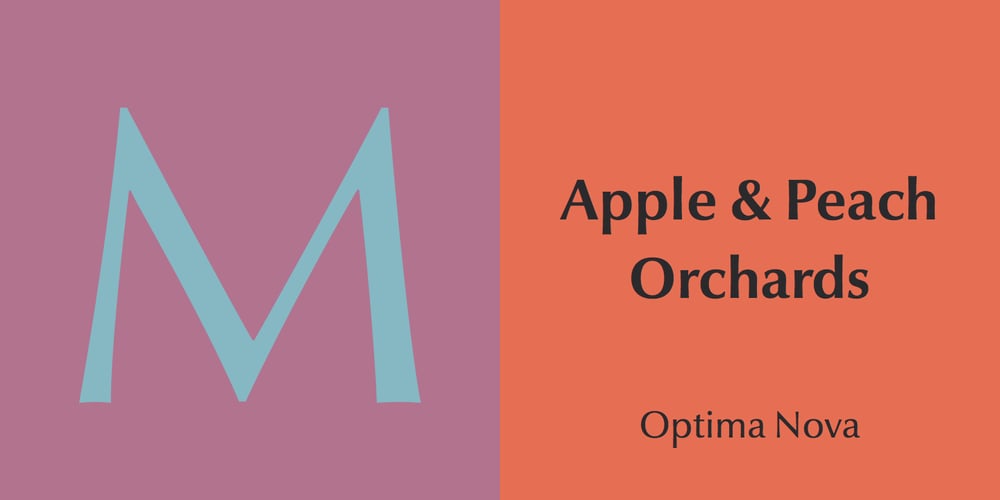
Optima Nova
Optima Nova font
Optima Nova Font Family was designed by Hermann Zapf, Akira Kobayashi and published by Linotype. Optima Nova contains 20 styles and family package options. With the clear, simple elegance of its sans serif forms and the warmly human touches of its tapering stems, the Optima family has proved popular around the world. In 2002, when it was finally possible to produce digital alphabets without technical limitations and compromises, and more than fifty years after the first sketches, an expansion and redesign of the Optima family was completed and released as Optima nova. Hermann Zapf and Japanese type designer, Akira Kobayashi, collaborated on the project, which included re-working of the existing weights and the addition of several new weights: small caps, old style figures, light, heavy, and condensed. The original Optima was never manufactured with a real italic, only an oblique version of the roman. Optima nova has a complete range of beautifully designed real italics; the new italic forms, of the e, f and g are especially notable. The titling face includes capital letters with special and unusual letter combinations and ligatures, making it an excellent choice for headlines, logos and advertising purposes. Optima continues to be an all-purpose typeface; and Optima nova works for just about anything from book text to signage.Optima Nova® font field guide including best practices, font pairings and alternatives.